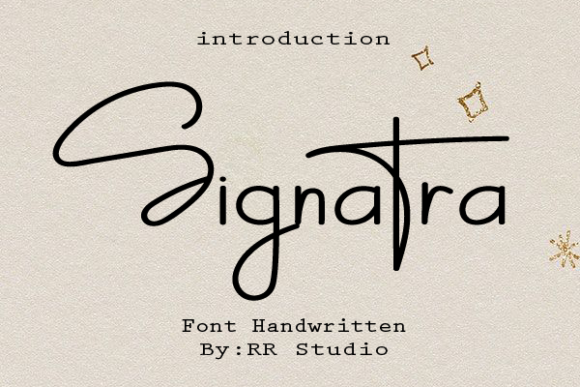
Signatra Font
Behold, a font that will orchestrate an exquisite symphony of visual delight - the Signatra Font, where elegance and charm intertwine. This script font, crafted with passion by the artisans at RR Studio, is an ode to the beauty of handwritten art, designed to take your creative endeavors to breathtaking heights.
Signatra is not just a font; it's an expression of artistry, a window into a world where letters dance with grace and words come alive with elegance. Its flowing curves, reminiscent of a calligrapher's masterful strokes, will infuse your designs with a touch of timeless sophistication.
Picture this: a wedding invitation adorned with the Signatra Font, its delicate lines weaving a tale of love and commitment, inviting guests to a celebration they'll never forget. Imagine thank-you cards penned with the Signatra Font, each word a heartfelt expression of gratitude, leaving a lasting impression on the recipient.
Quotes, greeting cards, logos, business cards - Signatra transforms the mundane into the extraordinary, elevating your designs with its innate charm. Its versatility knows no bounds, adapting seamlessly to a myriad of creative projects, each one a testament to the power of beautiful typography.
Step into the world of Signatra, where every letter tells a story, where words become art, and where your designs transcend the ordinary. Let Signatra be your muse, guiding you to create visual masterpieces that resonate with elegance, creativity, and timeless beauty.
The Signatra Font is more than just a collection of characters; it's an invitation to embark on a creative journey, to explore the boundless possibilities of handwritten artistry. Download Signatra today and unlock the gateway to a world of visual enchantment.